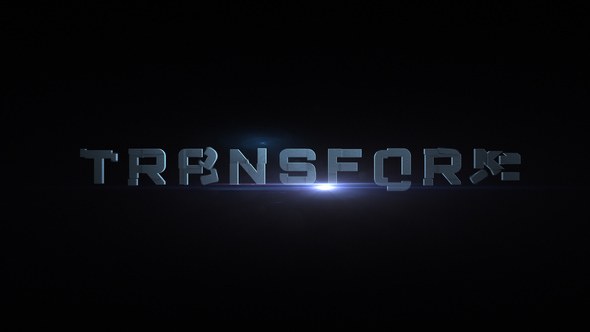
Transform Type - Animated Typeface
Transform Type is an animated Typeface that fits to robotic, mechanical styles and is easy to work with. Unlike other Animated Typefaces, you don’t need to drag each letter on its own into the timeline, you can actually write your text in a textbox and get the result right away. Thanks to the included EasyType Script. It is very easy to transform one text to another, the included videotutorials show you how to work with the project. Not that those are really needed, as it is so easy!
All included characters are prerendered in a 3D Program in a high resolution, making this animated typeface ready for 4K projects.
- Letters A-Z (Uppercase only, 3 Variations included to prevent Repetition)
- Digits 0-9 (2 Variations included)
- Special Characters and Punctuation as shown in Preview